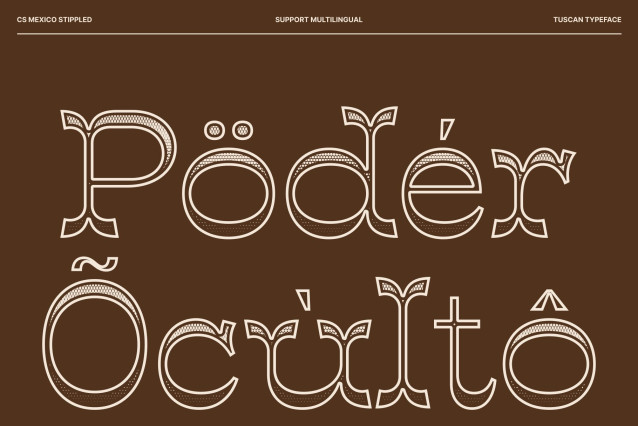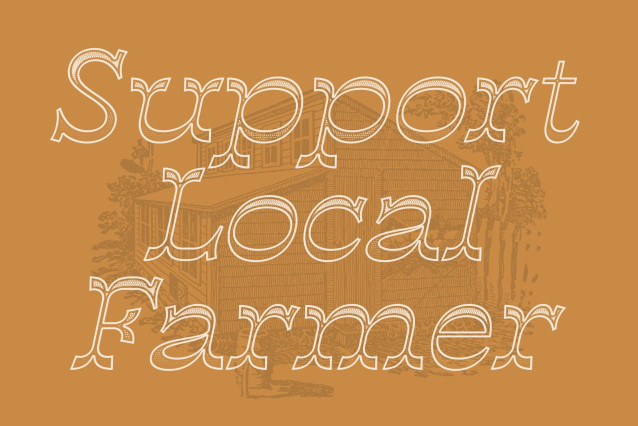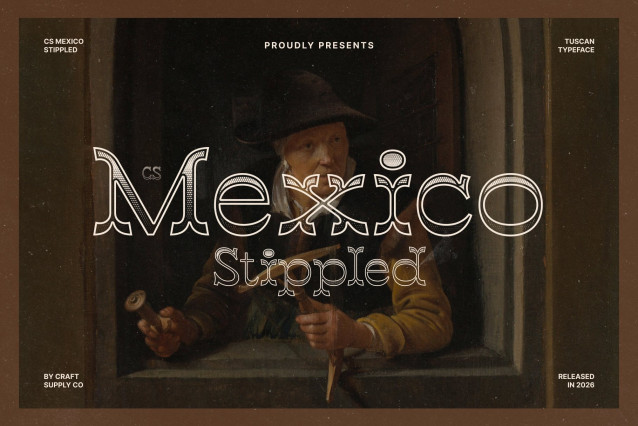
CS Mexico Stippled Font
CS Mexico Stippled – A Bold and Ornamental Tuscan Serif
A Classic Tuscan Display Font
This is a striking display serif inspired by traditional Tuscan typography, celebrated for its bifurcated serifs and intricate decorative details. Its bold structure and distinctive letterforms create a commanding presence that captures vintage elegance while remaining visually fresh.
Dramatic and Unconventional Aesthetic
Featuring split serifs, ornamental accents, and expressive curves, this font delivers a strong and theatrical personality. The stylized shapes bring together historical charm and modern versatility, making it ideal for Western-inspired graphics, retro signage, and classic branding.
Stippled Texture for Vintage Craftsmanship
The stippled effect introduces a dense dotted texture that mimics hand-inked illustration techniques. This dotwork detail enhances the ornamental forms, adding depth, warmth, and an authentic vintage feel that reinforces the heritage-inspired character of the font.